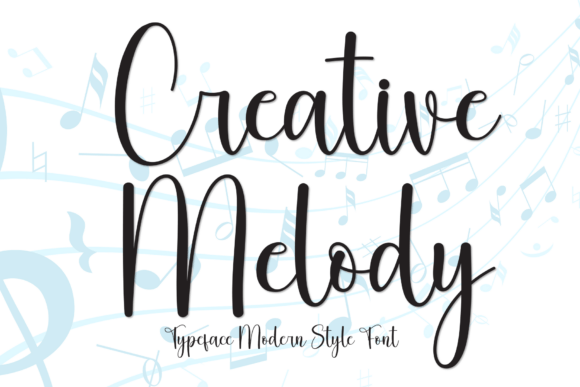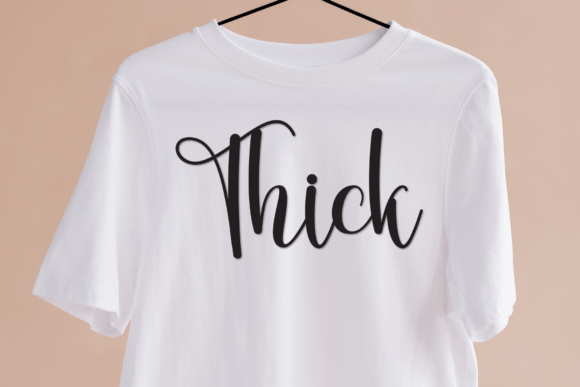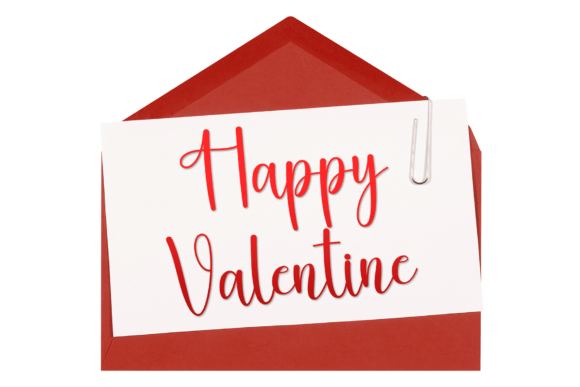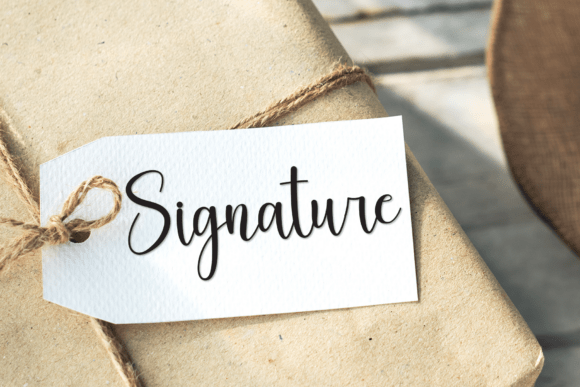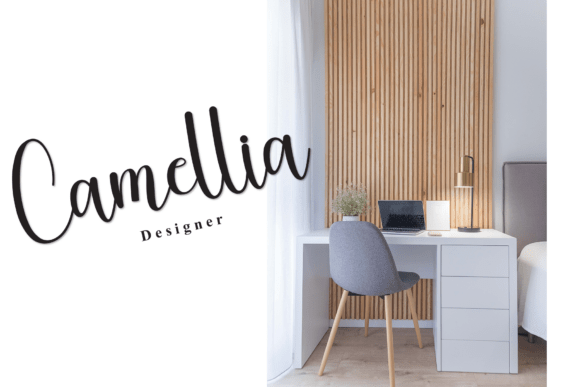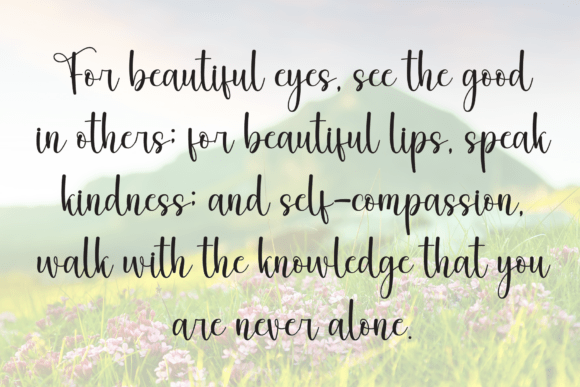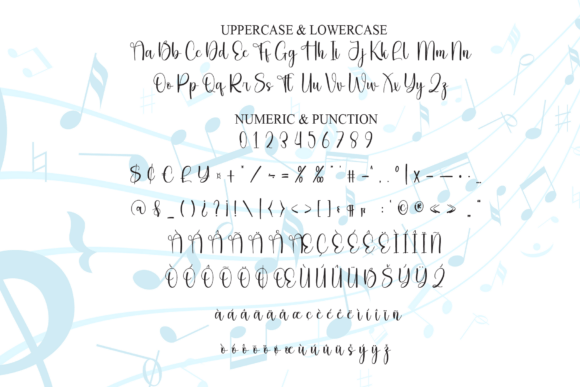
Discover the Perfect Melody for Your Designs
Have you ever sat down with a blank piece of paper, a pencil, and a dash of creativity, only to be swept away by the magic of handwritten typography? For many designers, there’s something special about the imperfections and charm of handwritten fonts that can elevate a design from ordinary to extraordinary. It’s this exact feeling that inspired the creation of the Creative Melody Font, a delightful and endearing handwritten display font that’s sure to bring a touch of whimsy to your next project.
This lovable font is the perfect companion for designers seeking to add a sprinkle of joy and warmth to their designs. Whether it’s a wedding invitation, a birthday card, or a social media post, the Creative Melody Font is the perfect choice for adding a playful and charming touch. With its adorable persona and fun spirit, this font is sure to bring a smile to the faces of your audience, making it a valuable addition to any designer’s toolkit.
Creative Melody Font Key Features
- Unique Characteristics: The Creative Melody Font features a unique blend of modern and vintage elements, with intricate details and ornaments that add a touch of elegance to any design.
Designer Review: Creative Melody Font
I recently had the chance to work with the Creative Melody Font, and I must say, it’s a beautiful addition to any project. ✨ The font’s elegant, handwritten feel makes it perfect for designs that need a touch of whimsy and sophistication. The subtle flair and connection between letters makes it easy to read and adds to the overall charm.
One of the things I appreciate about this font is its versatility. ✨ It works well for a variety of projects, from wedding invitations to blog headers. The font’s versatility is due in part to its many styles and variations, which allow designers to tailor the look to their specific needs.
Limits and Areas for Improvement
- ⚠️ The font may not be suitable for large blocks of text, as the handwritten feel can make it difficult to read in large quantities.
- ⚠️ Some users may find the font’s flair and connections between letters to be distracting or overly ornate.
- ⚠️ The font’s many styles and variations can be overwhelming to navigate, especially for designers who are new to the font.
Overall, I think the Creative Melody Font is a great addition to any designer’s toolkit. While it may have some limitations, its unique charm and versatility make it a valuable asset for any project that needs a touch of elegance and sophistication.
Some tips for getting the most out of the Creative Melody Font include:
- Using it for music-related designs, such as album covers or posters.
- Applying it to decorative text elements, such as titles or headings.
- Mixing it with other fonts for a unique and creative look.